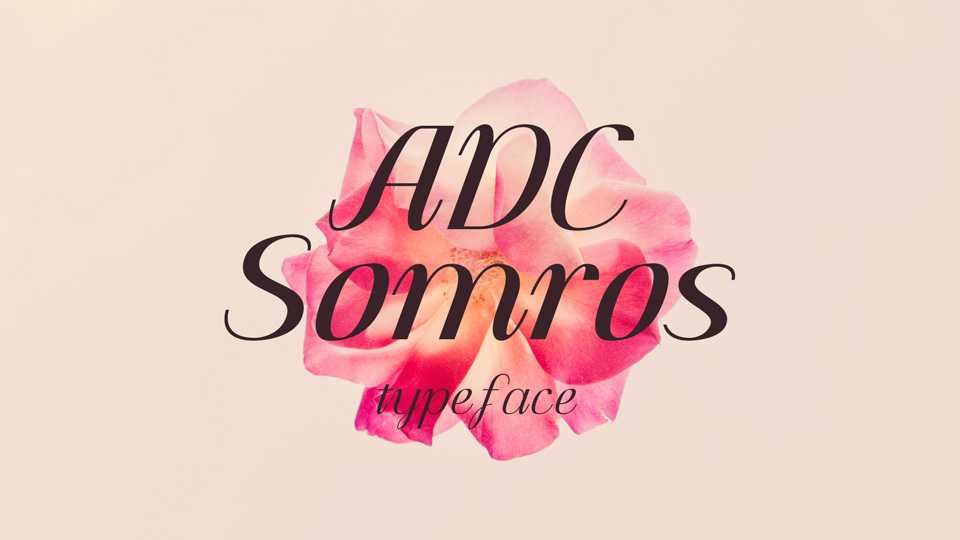
Download ADC Somros typeface, an elegant font family in two weights referenced to calligraphy italic and script style. ADC Somros font looks beautiful for a feminine branding, wedding decorations, cards, letters and more.